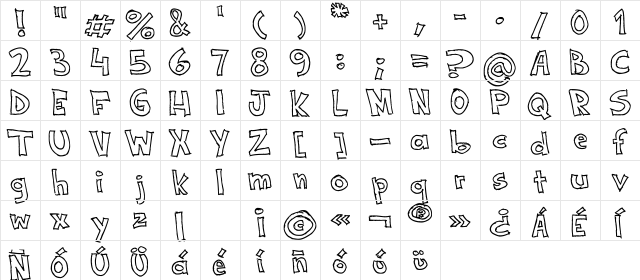
NeNe_WeNo Width HandWrite Regular
Design Context for NeNe_WeNo Width HandWrite Typeface
NeNe_WeNo Width HandWrite flows with the natural rhythm of handwritten lettering, making it ideal for designs that call for warmth and personal expression.
Font Pairing: Combine NeNe_WeNo Width HandWrite with a simple geometric sans for maximum contrast — the tension between flowing curves and clean structure is a classic typographic pairing.
Pro Tip: Use NeNe_WeNo Width HandWrite for short runs of text — names, titles, or taglines. Extended body copy in script faces tires the eye quickly.